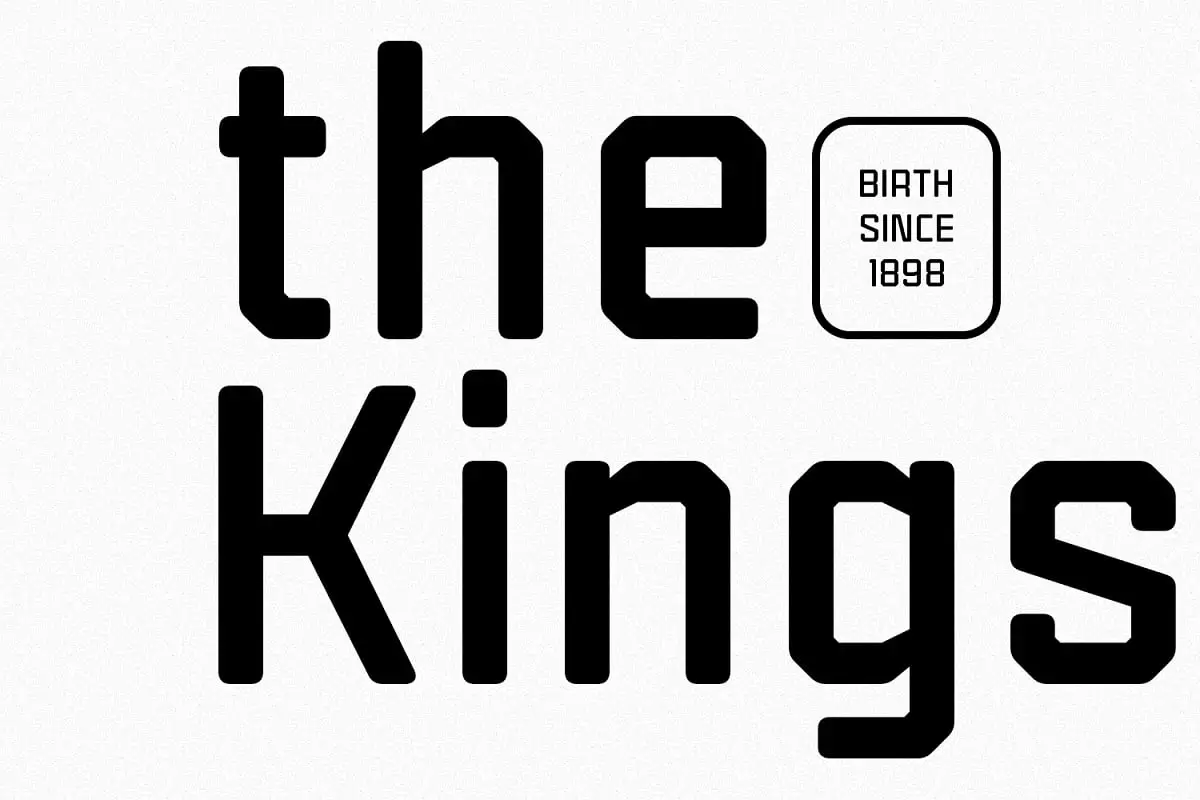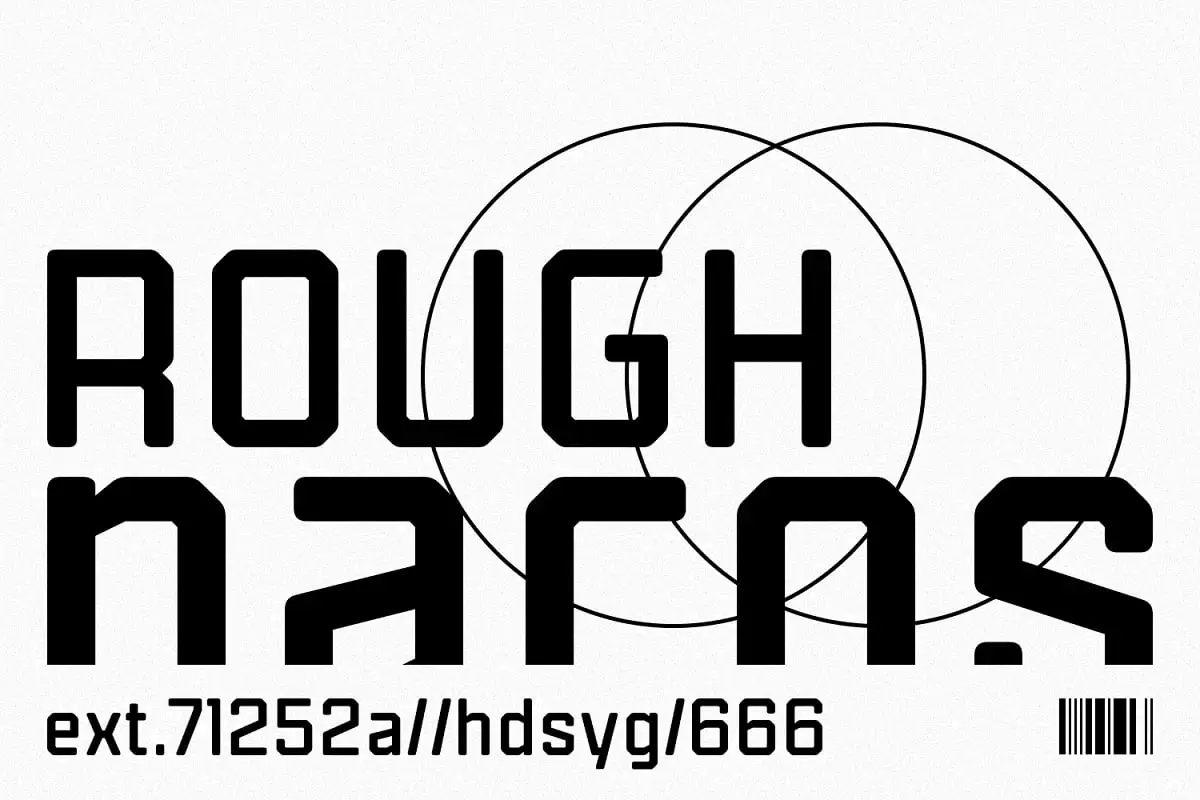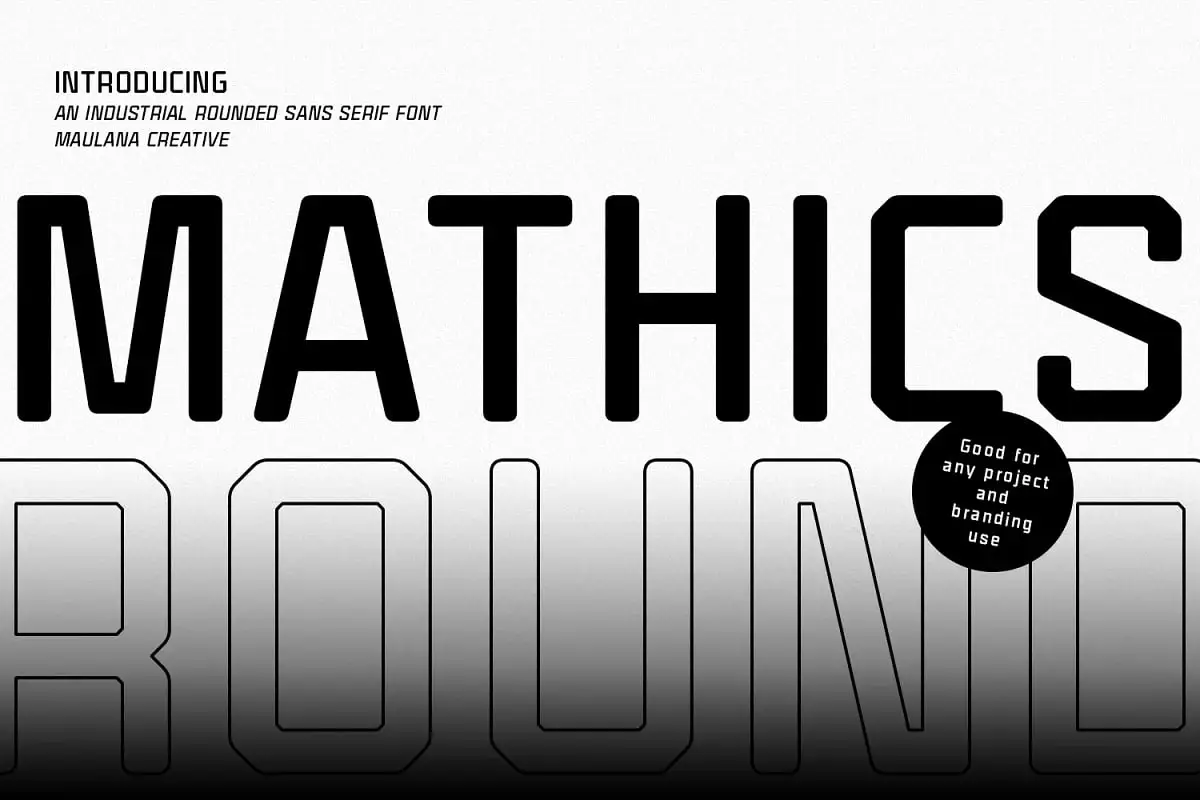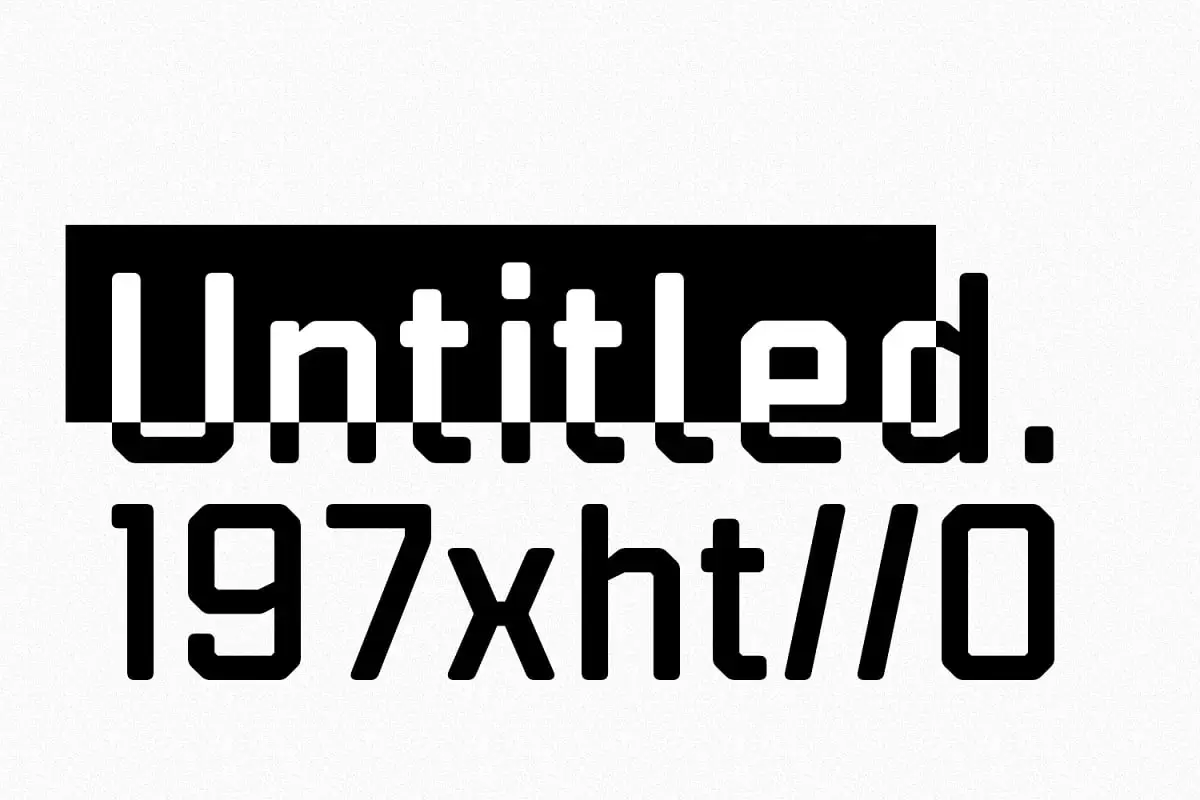
Mathics Round Sans Serif Font
The Mathics Round Sans Serif Font is a modern typeface that combines geometric shapes with a friendly, rounded aesthetic. Perfect for a variety of design projects, this font offers clarity and legibility while maintaining a contemporary look.
• Clean, rounded edges for a friendly appearance
• Uppercase and lowercase letters, numbers, and punctuation
• Ideal for both display and body text
• Character Set: Latin, extended characters included
• Great for branding, logos, and marketing materials
• Use in print layouts for a modern touch
• Perfect for user interfaces and web design